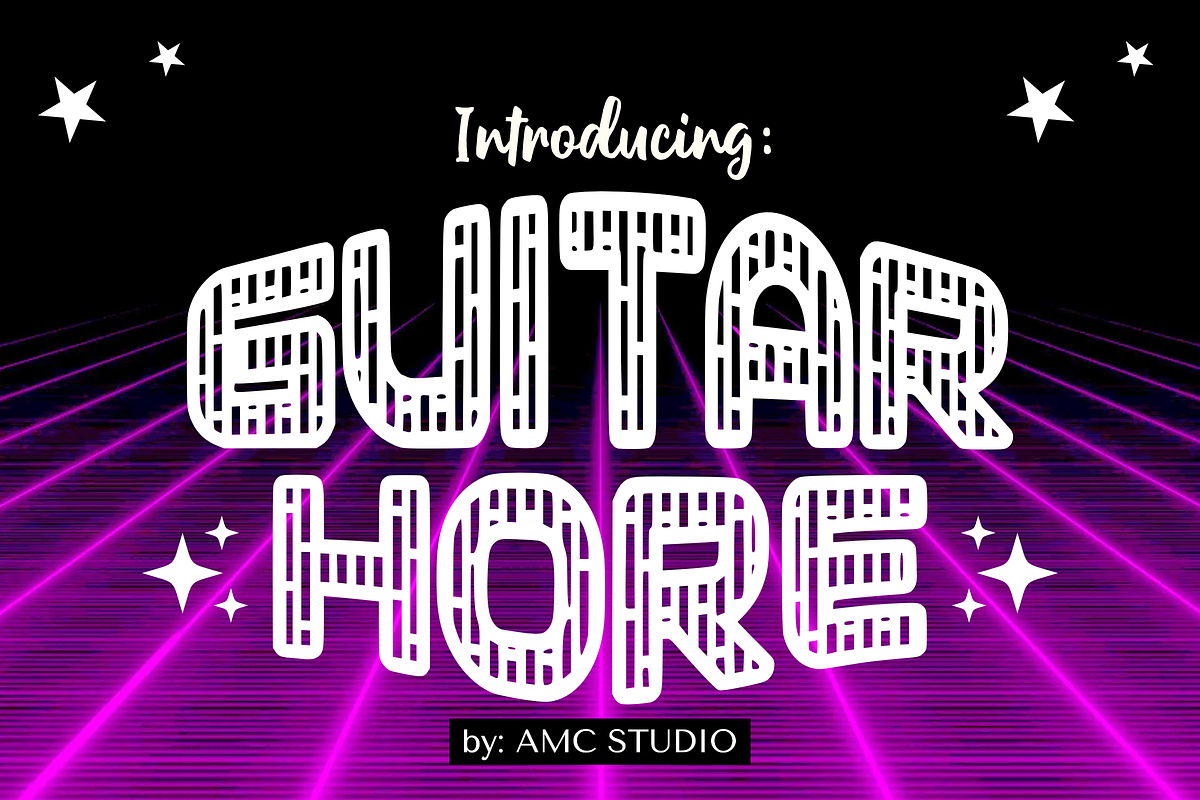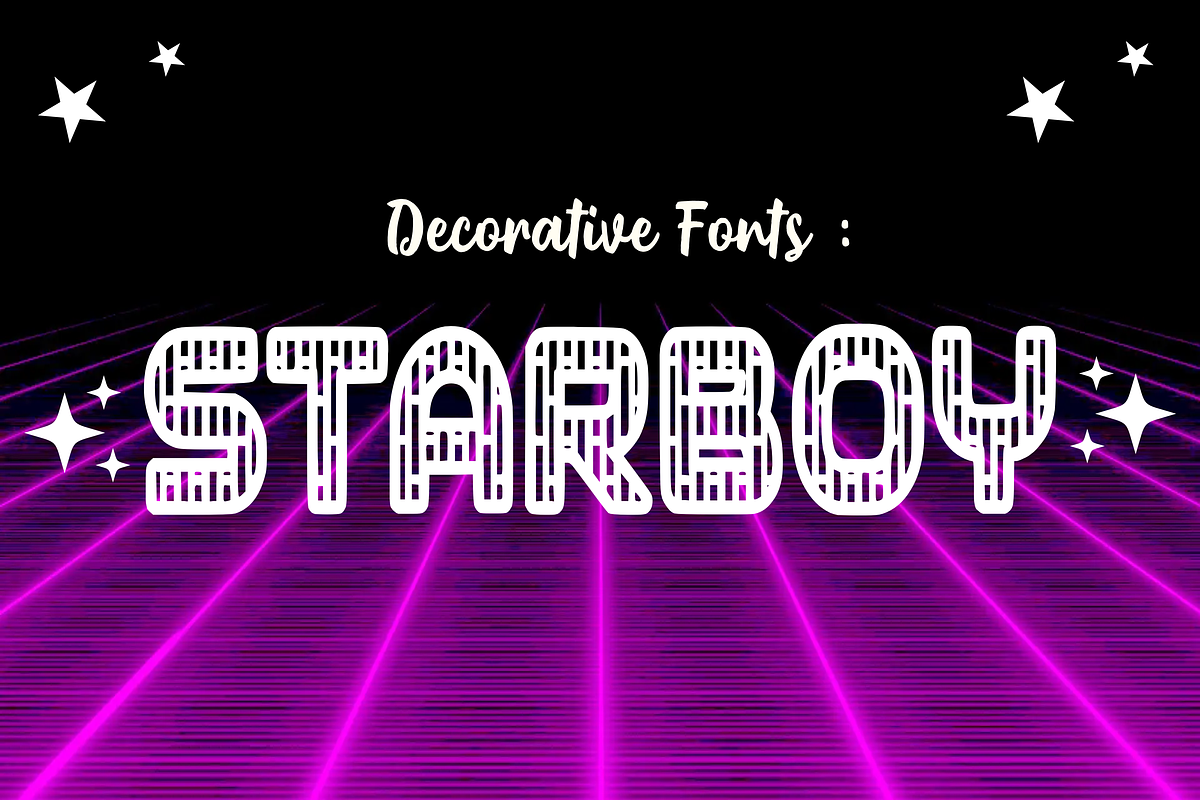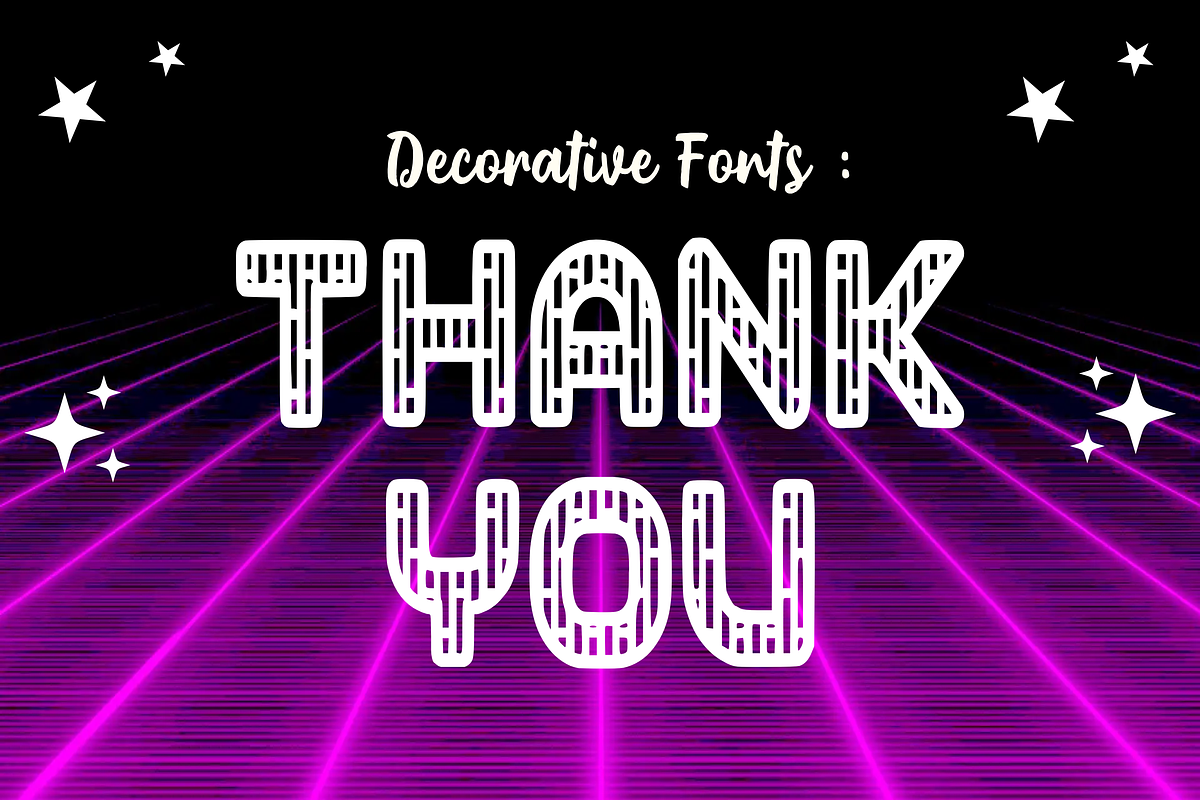
Guitar Hore - Music Font Types
Introducing Guitar Hore, a contemporary music-inspired typography designed with a compelling blend of chic and charisma. Each character emanates an aura of coolness that is evocative of a rhythmic melody. This powerful script serves as an excellent resource for creators looking for a dynamic way to highlight titles, add a unique touch to animation projects, design attention-grabbing logos for screen printed t-shirts and bring vibrancy to greeting cards. In addition, it’s a perfect choice to infuse a dash of energy and fun into party invitations and similar artistic expressions. So, let the tune of creativity play with Guitar Hore, the font that strikes all the right chords in design aesthetics.